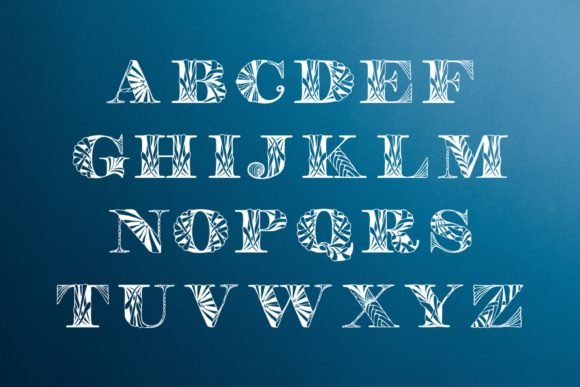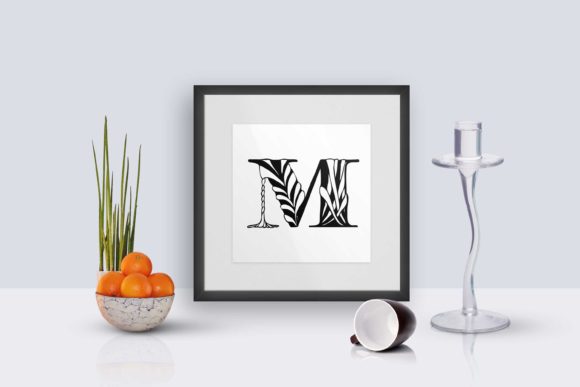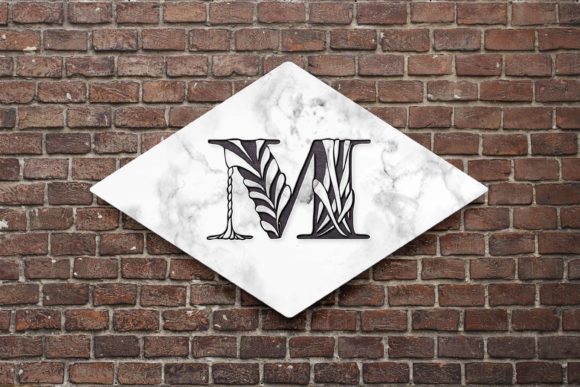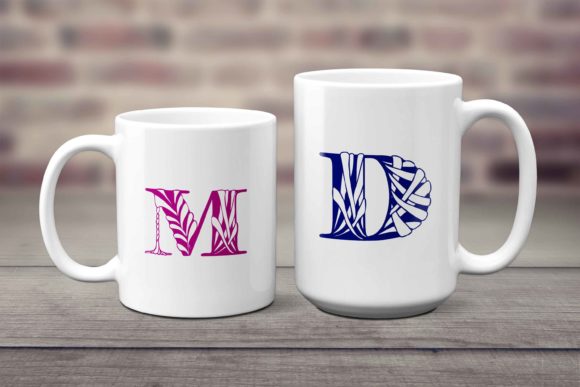
Introduction to Portabell Font
Portabell is an all uppercase decorative font.
It has a great look, and is perfect for various craft designs Whether youโ€™re using it for crafts, digital design, logos, or branding, this font has the potential to become your favorite font, no matter the occasion.
Portabell Font offers exceptional quality and versatility, making it a valuable addition to your design toolkit. Whether you’re creating for personal projects or commercial use, Portabell Font delivers professional results.